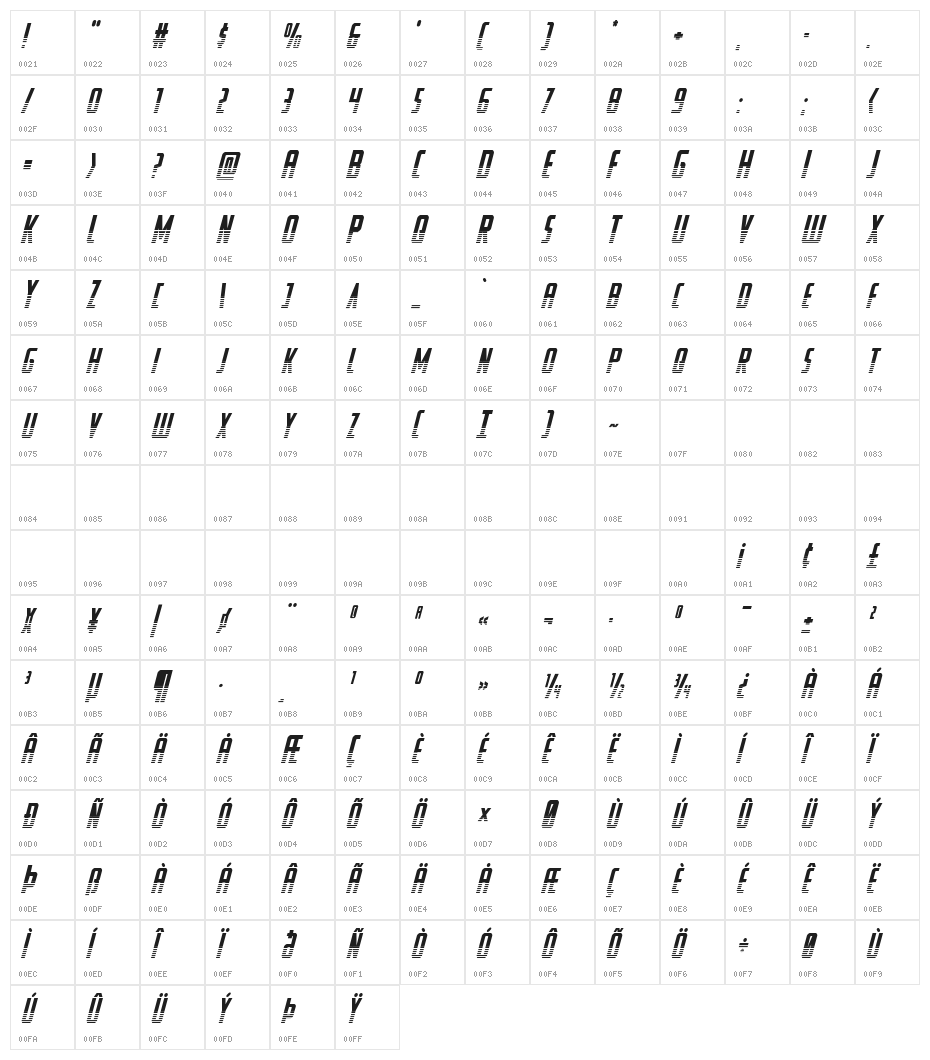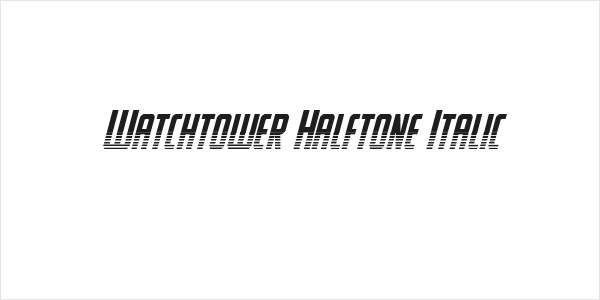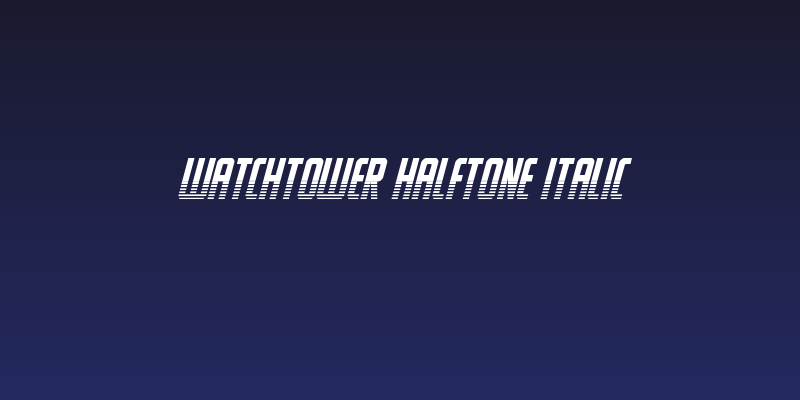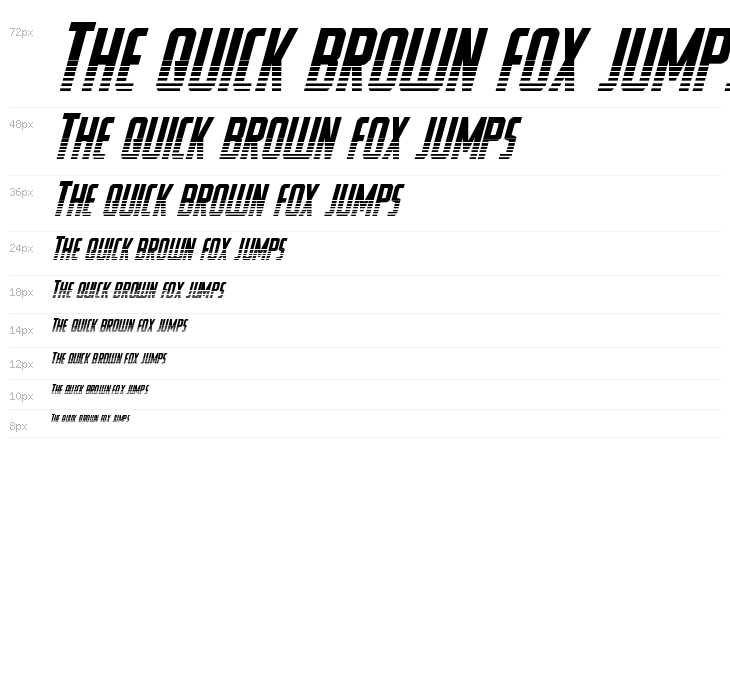
Watchtower Halftone Italic Font
Watchtower Halftone Italic Description
This font features a dynamic and bold design with a halftone effect that gives it a sense of movement and energy. The characters are italicized, adding a slanted, forward-leaning appearance that enhances its modern and edgy style. The uppercase and lowercase letters, as well as numbers and special characters, are designed with a consistent pattern of horizontal lines that create a unique visual texture. This font is ideal for projects that require a strong and impactful visual statement, such as posters, headlines, and branding materials. Its distinctive style makes it stand out, capturing attention with its bold and innovative design.
| Proposed Projects | Ideal for posters, headlines, branding materials, and any project needing a bold visual impact. |